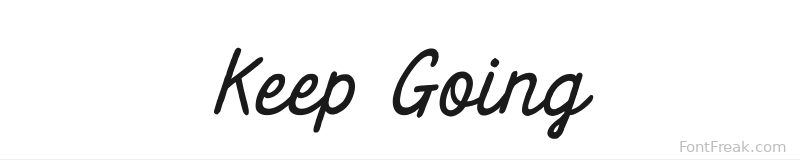
Keep Going
The Keep Going font by BLKBK Fonts is a captivating script typeface that effortlessly blends elegance with a casual flair. Its fluid, handwritten style features smooth curves and playful strokes, making it an inviting choice for a variety of design projects. The moderate stroke weight and minimal contrast contribute to its legibility, while the slightly varied spacing adds a touch of individuality, allowing each character to stand out while maintaining harmony.
Ideal for creative applications, the Keep Going font shines in contexts such as wedding invitations, where its personal touch can evoke warmth and sentimentality. It also works beautifully for social media graphics, lending a friendly and approachable feel to posts and announcements. Restaurant menus can benefit from this font’s charm, helping to create an inviting atmosphere that complements the dining experience. Additionally, Keep Going is suitable for branding projects, especially for small businesses looking to convey a laid-back and contemporary vibe.
The target audience for this font includes graphic designers, small business owners, and content creators who are in search of a versatile typeface that resonates with their audience. The Keep Going font free download makes it accessible for projects of all sizes, allowing users to incorporate its unique style without budget constraints.
What sets Keep Going apart is its ability to evoke emotion while remaining functional. This font captures the spirit of creativity and perseverance, encouraging viewers to "keep going" in their endeavors. Whether you are crafting a heartfelt invitation or designing eye-catching promotional materials, this font offers the perfect blend of style and substance, making it an essential addition to any designer's toolkit.